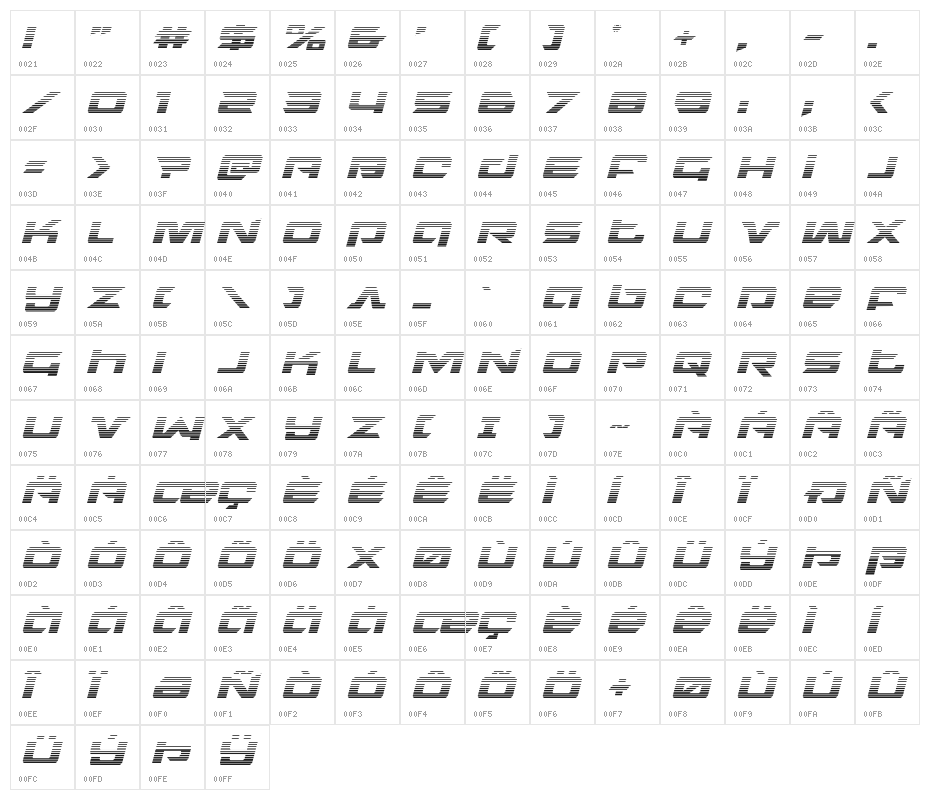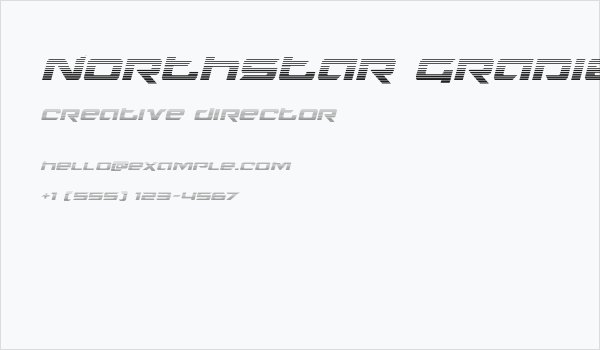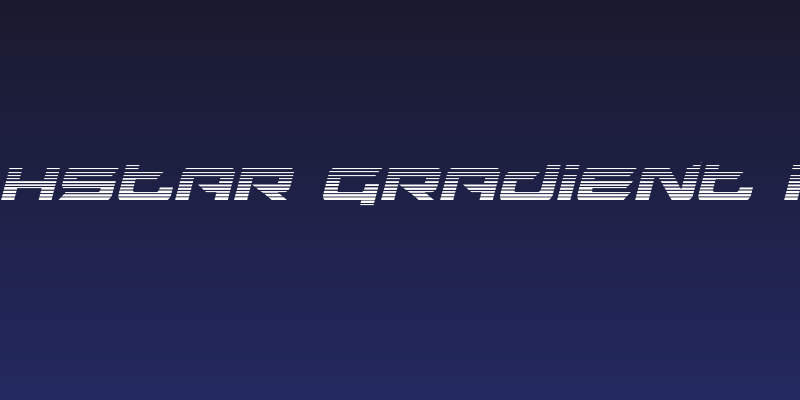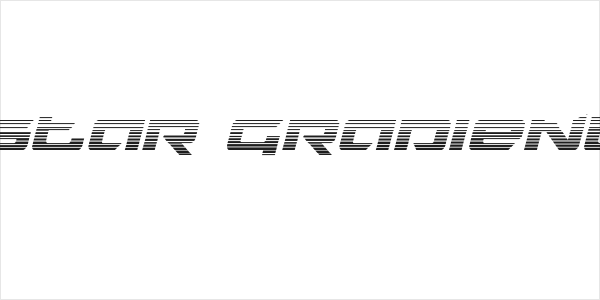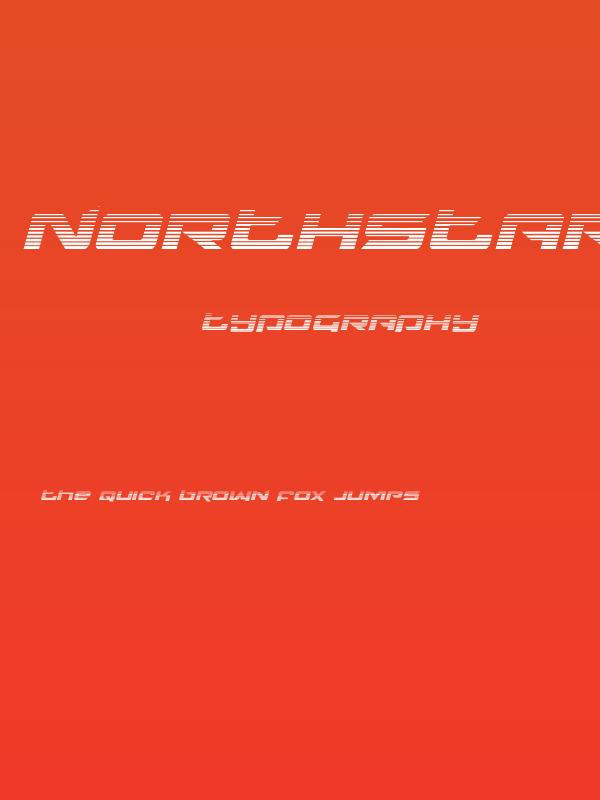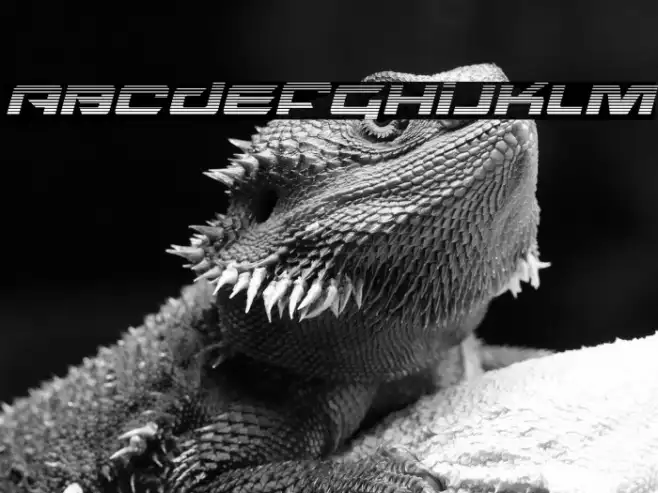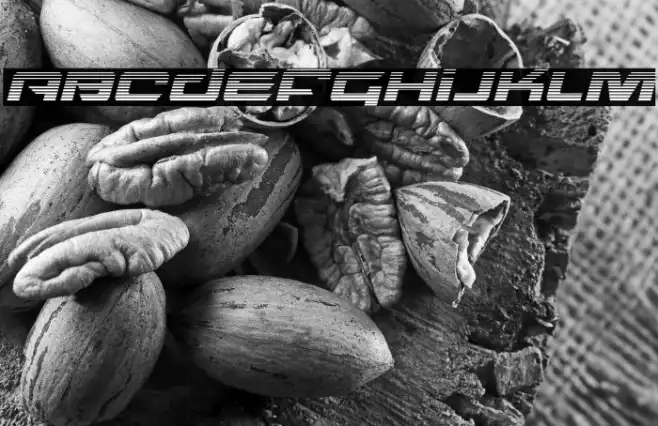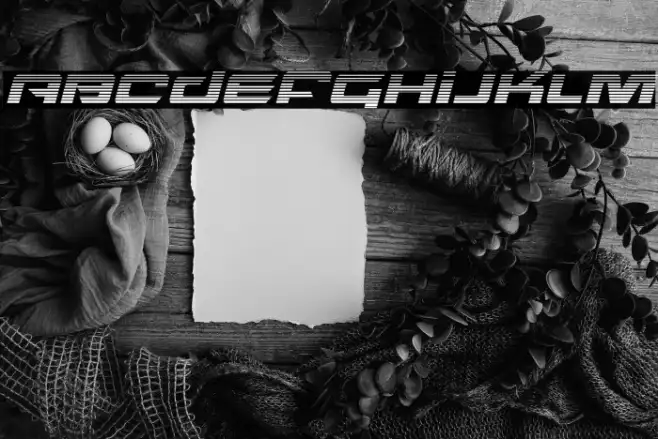
Northstar Gradient Italic Font
Northstar Gradient Italic Description
This font features a futuristic and dynamic design, characterized by its italicized and gradient-striped appearance. Each character is composed of horizontal lines that create a sense of movement and speed, making it ideal for modern and tech-oriented projects. The uppercase and lowercase letters maintain a consistent style, with sharp angles and a slanted orientation that enhances its sleek look. The numerals and special characters are designed to match the overall aesthetic, ensuring uniformity across all text elements.
| Proposed Projects | Ideal for tech branding, sci-fi themed designs, video game titles, and futuristic posters. |